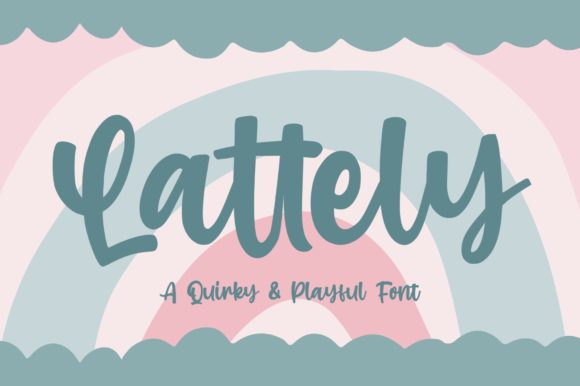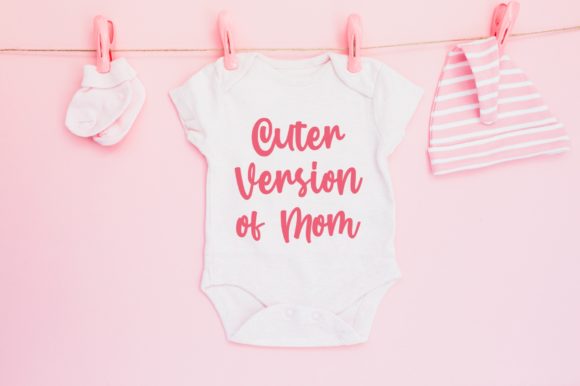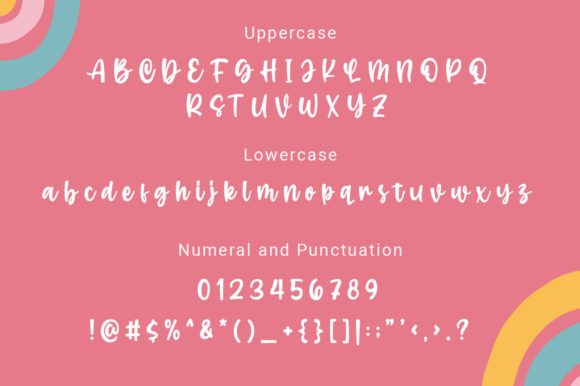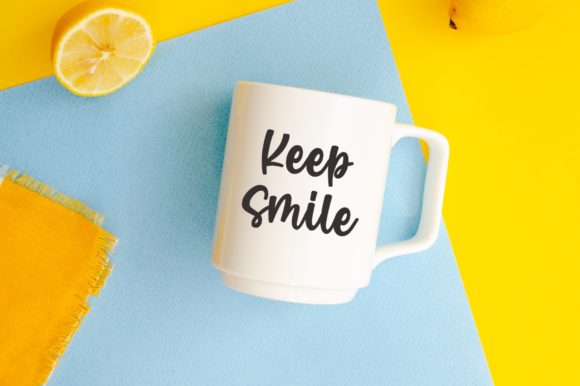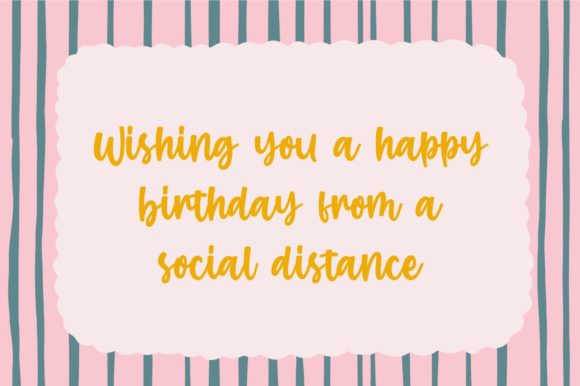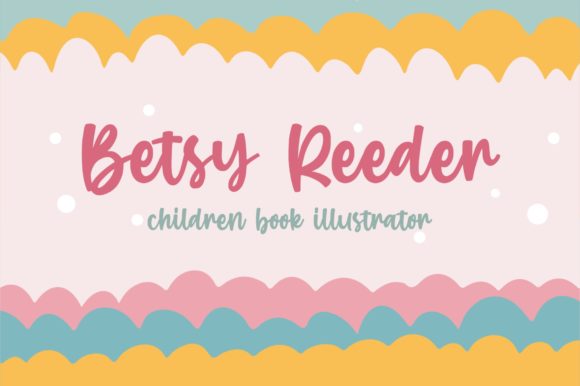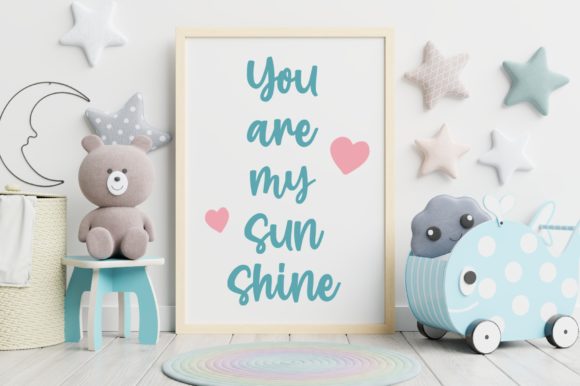
Lattely Font
About Lattely Font
Lattely is a quirky and playful handwritten font. Created with the help of a brush pen, this font has a beautiful flow attached, brightening up each of your designs!